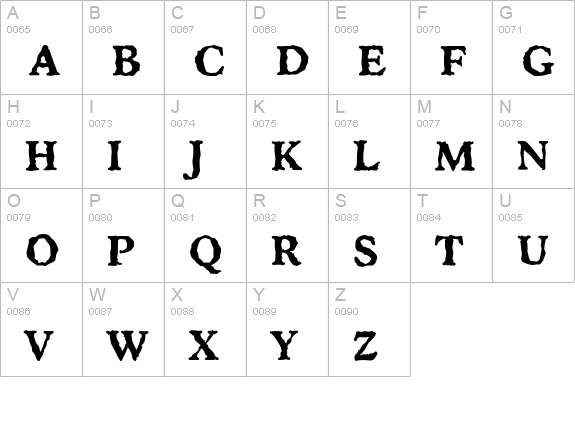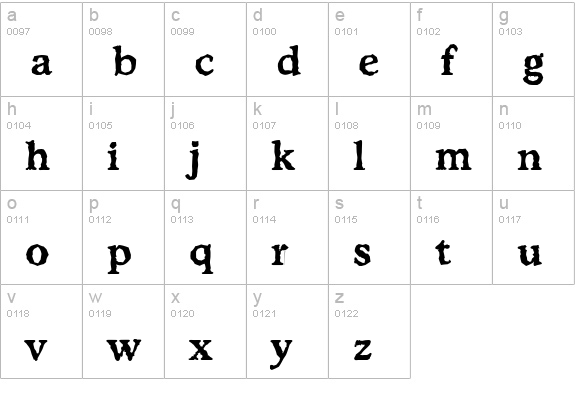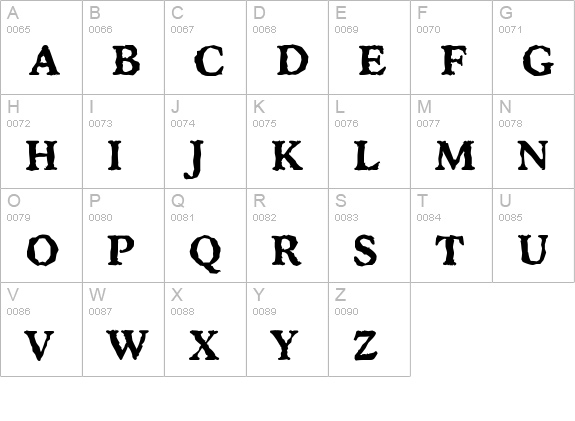
StratfordRandom-Bold is a strong, high-contrast variant in the StratfordRandom typeface family \xE2\x80\x94 well suited to headlines, attention-grabbing titles, and strong calls-to-action.
StratfordRandom-Bold is a modern and stylish font that exudes confidence and strength. Its bold and dynamic letterforms make a statement while maintaining readability and versatility in various design projects. This font is perfect for headlines, posters, logos, and any design that requires a touch of boldness. The best part is that this font is completely free to download at FontsMarket.com, making it accessible to all designers and creatives looking to elevate their work with a touch of sophistication and flair. Don't miss out on the opportunity to add StratfordRandom-Bold to your font collection and bring your designs to the next level.